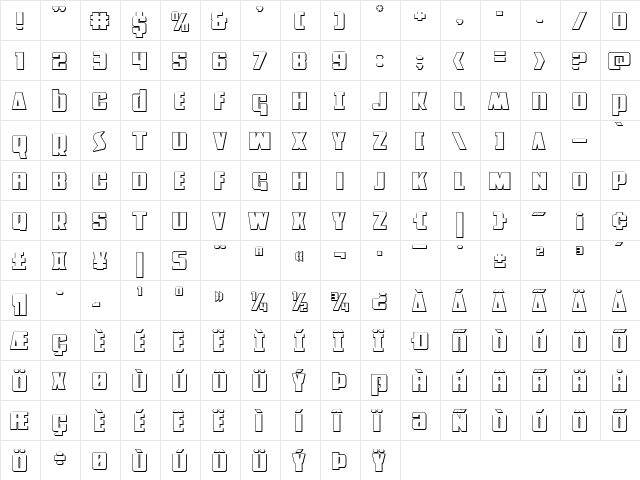
Power Lord 3D Regular
Design Context for Power Lord 3D Typeface
Power Lord 3D has the bold swagger of sports branding: strong, assertive letterforms designed to dominate headlines and jerseys alike.
A natural choice for gym brands, fantasy sports, jersey lettering, and action-driven headlines.
Pro Tip: Use Power Lord 3D in all-caps headlines where its athletic energy can fully express itself. Pair with a solid, simple sans for supporting text.